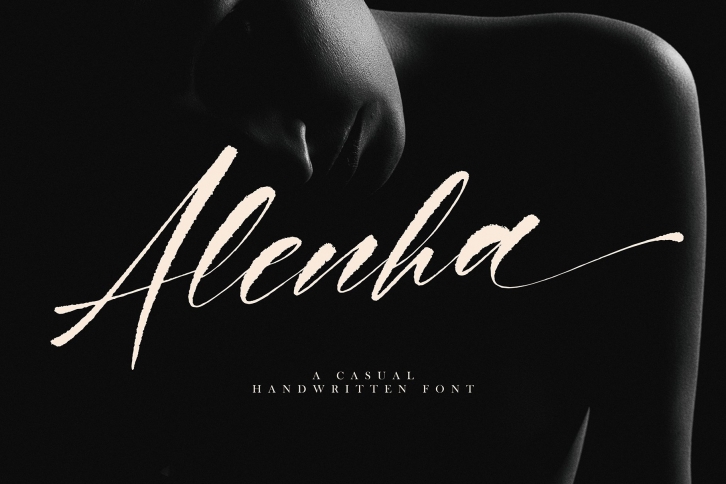
Alenha a casual font with modern Handwritten style, this font will perfect for many different project ex: quotes, logo, blog header, poster, banding, fashion, apparel, letter, invitation, stationery, etc...